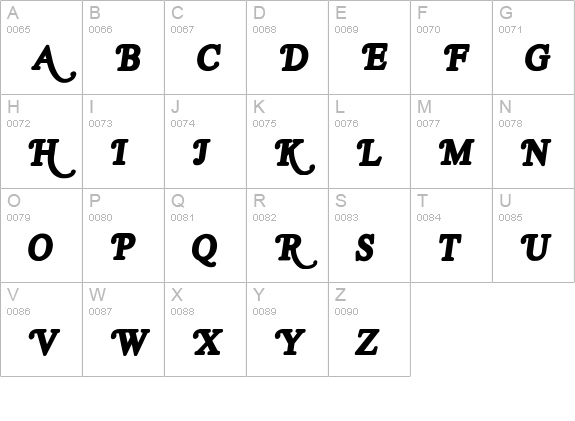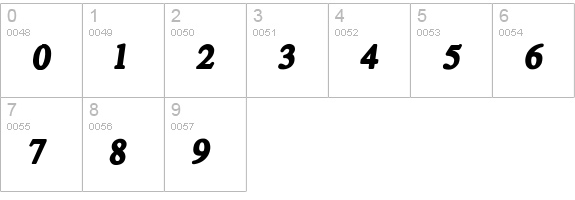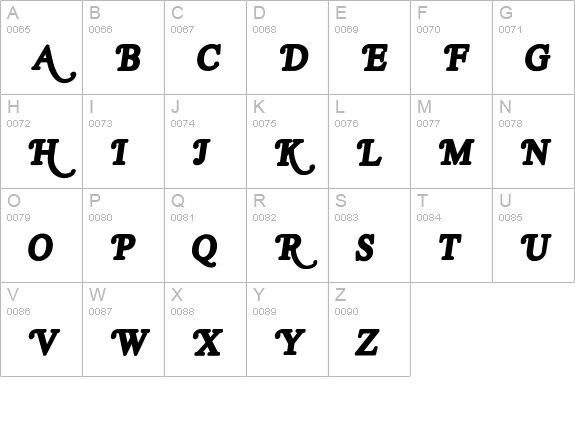
Rolling Rocker font is a bold and dynamic typeface that exudes a sense of energy and movement. Its sleek lines and rounded edges give it a modern and stylish look, making it perfect for designs that need a touch of edginess. Whether you're creating posters, logos, or social media graphics, Rolling Rocker font will make your text stand out. And the best part? Rolling Rocker font is completely free to download at FontsMarket.com. You can easily add this versatile font to your collection without spending a dime. So why wait? Download Rolling Rocker font today and let your creativity rock and roll!